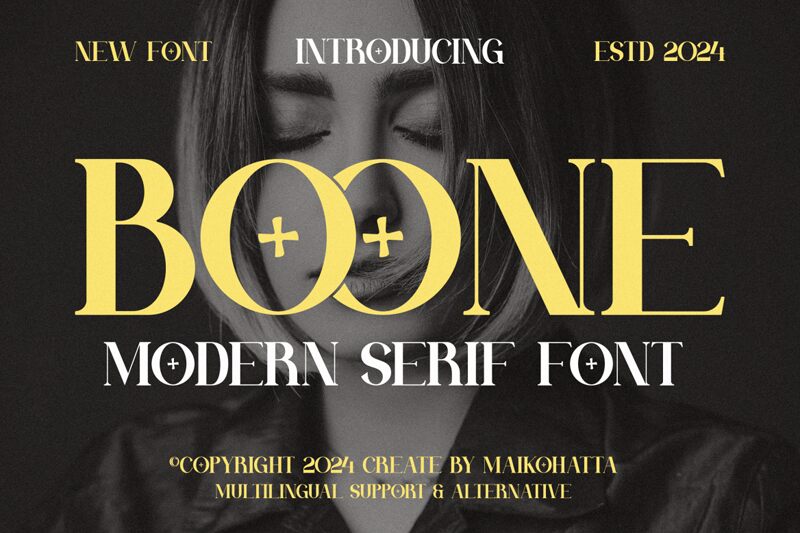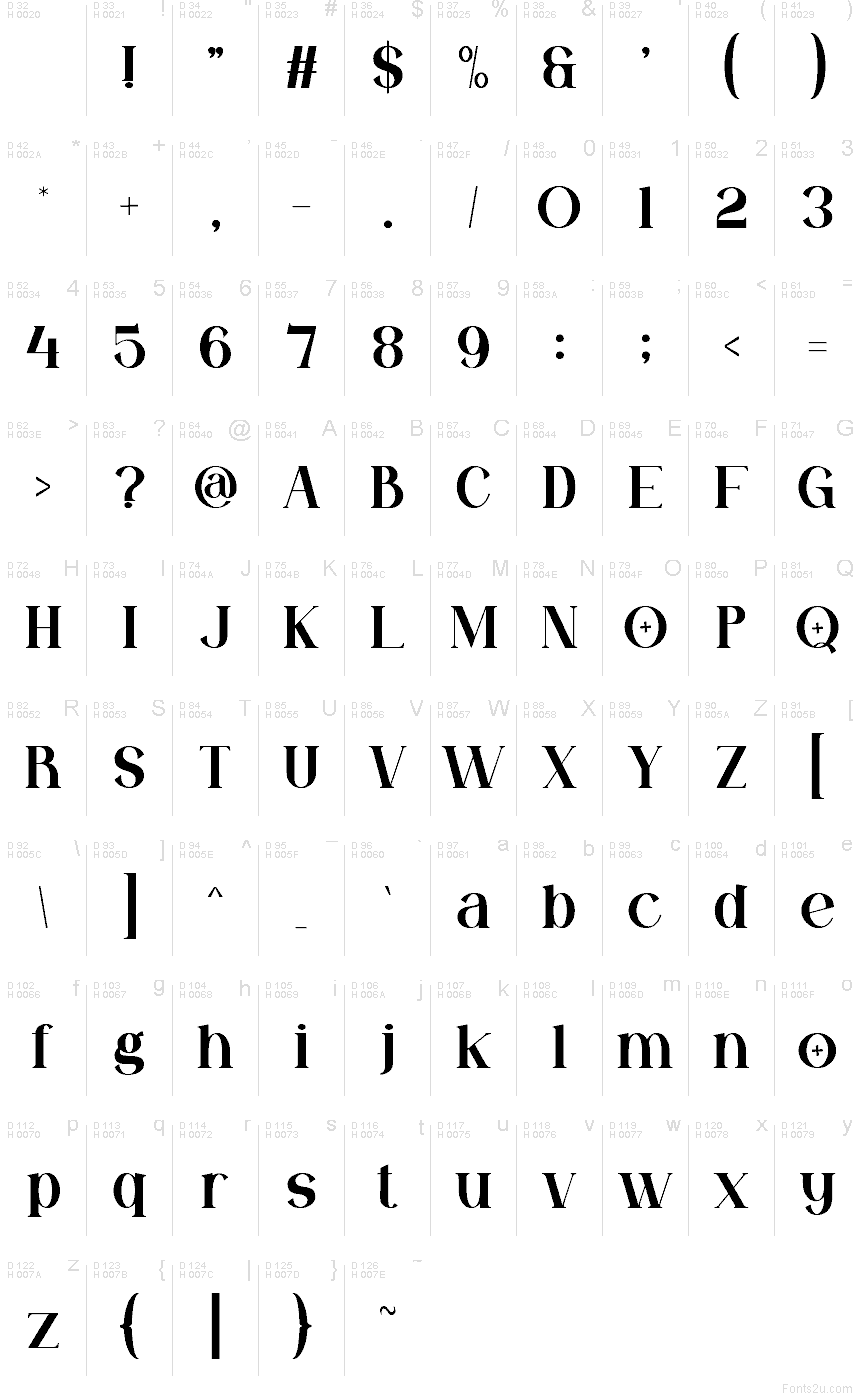
BOONE
Boone font by Gilang Ternadho of Maikohatta is a free decorative serif typeface that turns every word into a ritual object. Tall, elegant letterforms are carved with sharp verticals, while the round counters hold bold plus symbols like tiny talismans glowing in the dark. The result feels both ceremonial and modern—ink-black, precise, and just a little unsettling, as if it was pulled from a forgotten grimoire and polished for contemporary layouts.
Using Boone, you get a serif that commands attention in a single glance, making it a natural fit for occult-inspired posters, metal or goth album covers, book jackets, tattoo flash sheets, edgy branding, and statement logos. The tight, sculpted forms carry weight even at smaller headline sizes, but this free font really shines when you give it room to breathe. Pair Boone with a clean geometric sans for body copy to heighten the contrast between mystic and minimal.